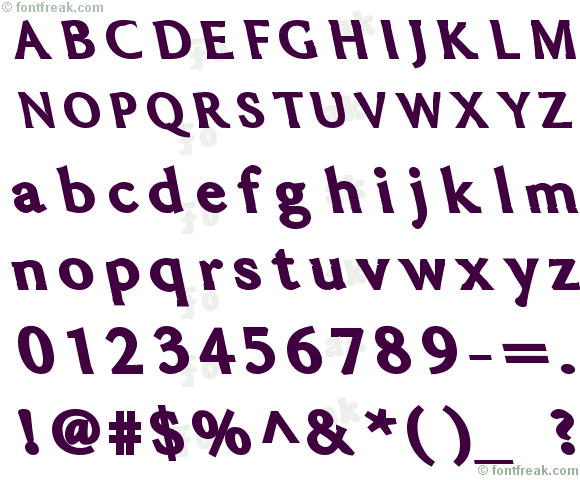
Fat Lefty
About Fat Lefty
Fat Lefty is a distinctive display font designed by Andy Krahling, characterized by its bold and playful aesthetic. This fat font features a unique, slightly slanted structure that adds a sense of dynamism and character to any design. The stroke weight is substantial, giving it a commanding presence while maintaining a friendly vibe. The spacing is thoughtfully executed, ensuring that each letter stands out without feeling overcrowded, making it an excellent choice for attention-grabbing text.
One of the most appealing aspects of the Fat Lefty font is its versatility across various applications. This font is particularly well-suited for creative projects such as restaurant menus that require a fun and inviting atmosphere, or movie posters where bold typography needs to capture the viewer's attention. Additionally, it excels in creating eye-catching headlines for social media graphics, making it a favorite among content creators. Wedding invitations can also benefit from its unique flair, providing a modern twist on traditional typography.
The target audience for Fat Lefty includes graphic designers looking for a bold typeface to enhance their projects, as well as small business owners who want to create memorable branding. Its playful nature appeals to those who wish to convey a sense of creativity and approachability in their designs.
Author Andy Krahling